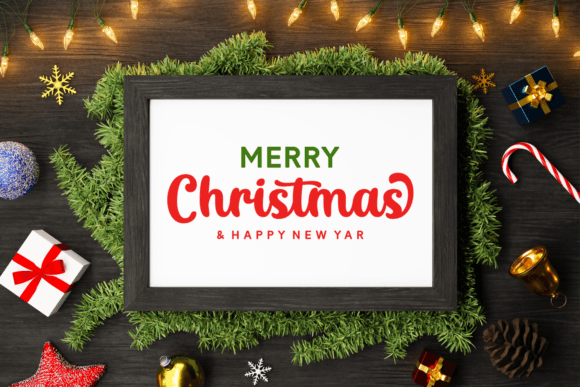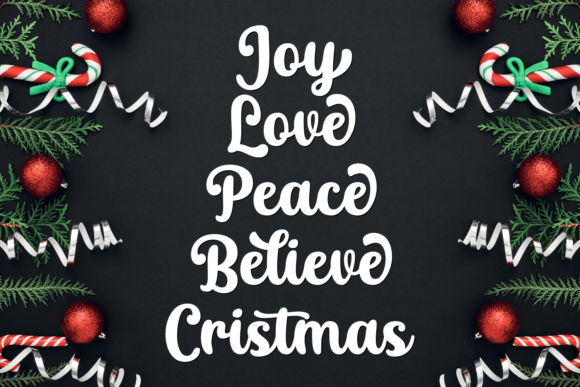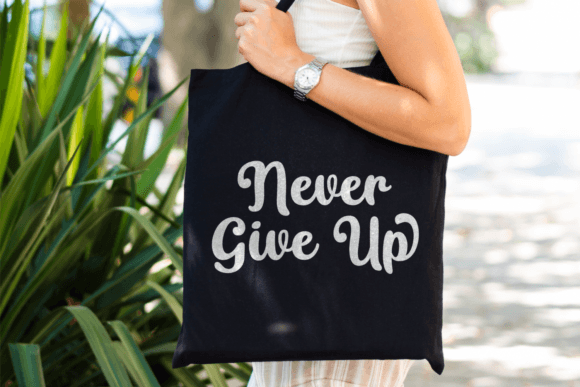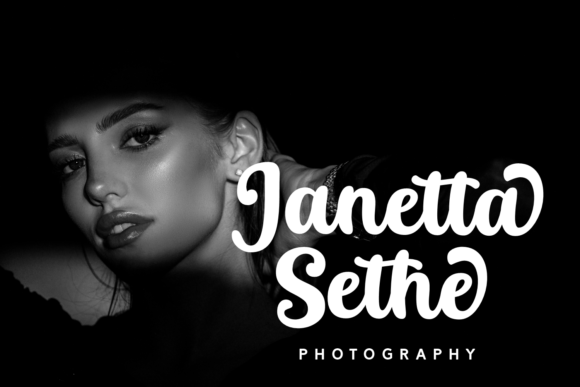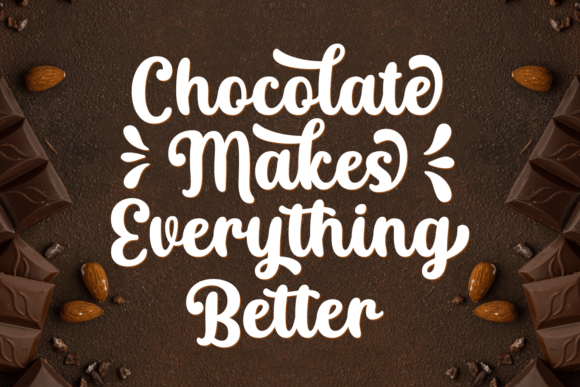
Introducing Delight Satarla Font: Elevate Your Designs with Elegance and Personality
In the world of typography, a font can make or break a design. It’s the perfect blend of form and function, where aesthetics meet usability. For designers and crafters looking to add a touch of sophistication and whimsy to their projects, Delight Satarla Font is an excellent choice. This striking script font is designed to exude elegance and personality, making it perfect for a variety of creative endeavors.
The Essence of Delight Satarla Font
Delight Satarla Font is a bold and intricate script font that boasts an unmistakable charm. Its unique lettering style is crafted to add a touch of delight to any design, whether it’s an invitation, branding project, or creative endeavor. The font’s sophisticated look and feel make it an excellent choice for designers who want to create a lasting impression.
Key Features of Delight Satarla Font
- Elegant and Bold: The font’s bold and intricate lettering style adds a touch of sophistication to any design, making it perfect for projects that demand a high level of elegance.
- Versatile: Delight Satarla Font is suitable for a variety of design projects, including invitations, branding, and creative endeavors.
Use Cases for Delight Satarla Font
Delight Satarla Font is an excellent choice for a range of design projects, including:
- Invitations: Add a touch of elegance and sophistication to your wedding invitations, birthday party invites, or any other special occasion.
- Branding: Use Delight Satarla Font to create a unique and memorable brand identity that stands out from the crowd.
- Creative Projects: Whether you’re working on a graphic design project, crafting a digital artwork, or creating a handmade card, Delight Satarla Font is an excellent choice.
Tips for Using Delight Satarla Font
To get the most out of Delight Satarla Font, here are some tips to keep in mind:
- Pair with a Simple Font: Pair Delight Satarla Font with a simple font to create a beautiful contrast and add visual interest to your design.
- Experiment with Colors: Delight Satarla Font looks stunning in a range of colors, so don’t be afraid to experiment and find the perfect hue for your design.
- Play with Ligatures: Take advantage of the font’s ligatures and glyphs to add a touch of whimsy and personality to your design.